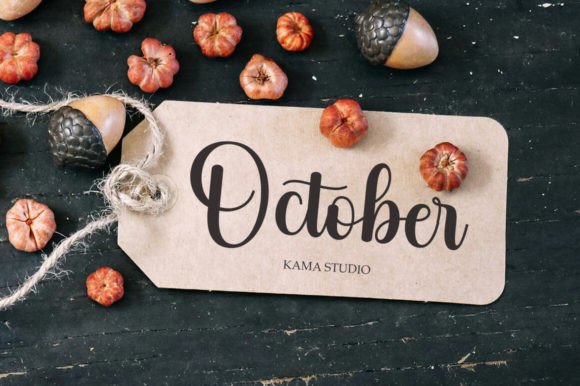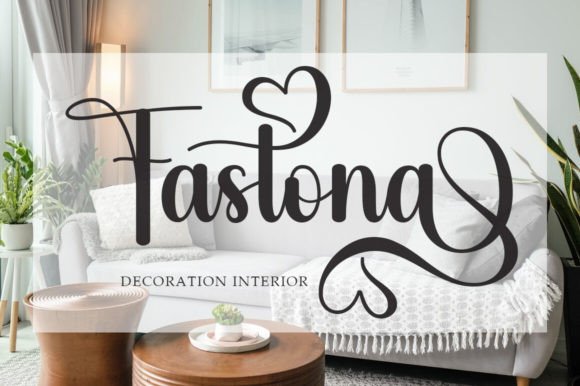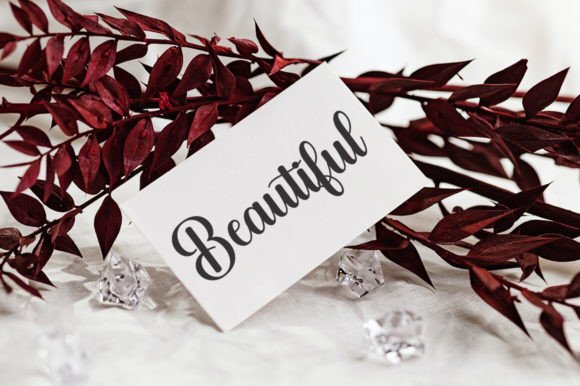
Introduction to Sinta Font
Meet Sinta – your new creative confidante.
Crafted to be as lively and multifaceted as your ideas, this handwritten font effuses a distinct vibe of fun and flexibility Ideally suited for your digital design endeavors, PowerPoint presentations, and even your personalized greeting card projects.
Key Features of Sinta Font
Why Choose Sinta Font?
Sinta Font offers exceptional quality and versatility, making it a valuable addition to your design toolkit. Whether you’re creating for personal projects or commercial use, Sinta Font delivers professional results.